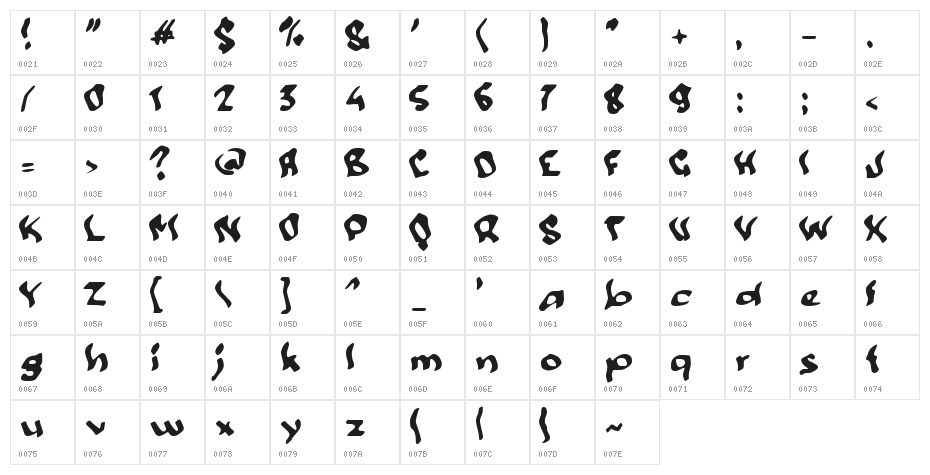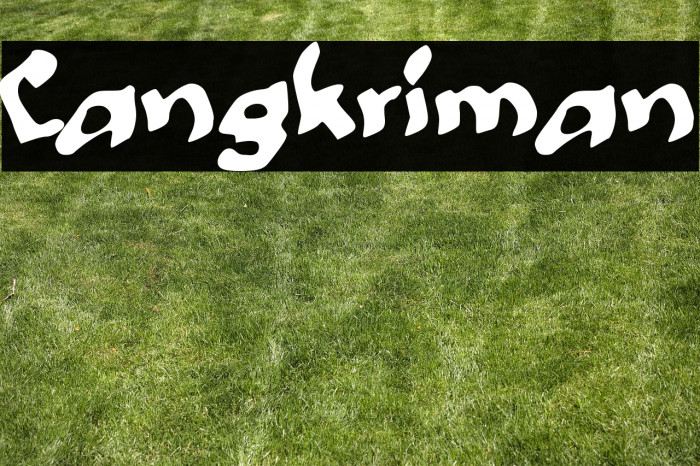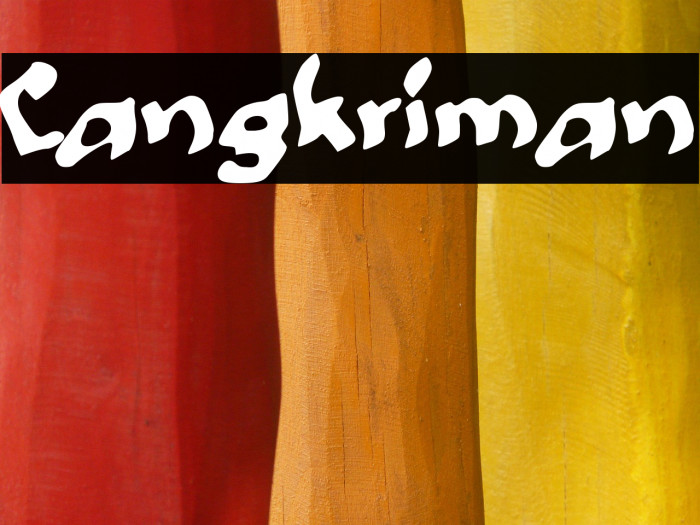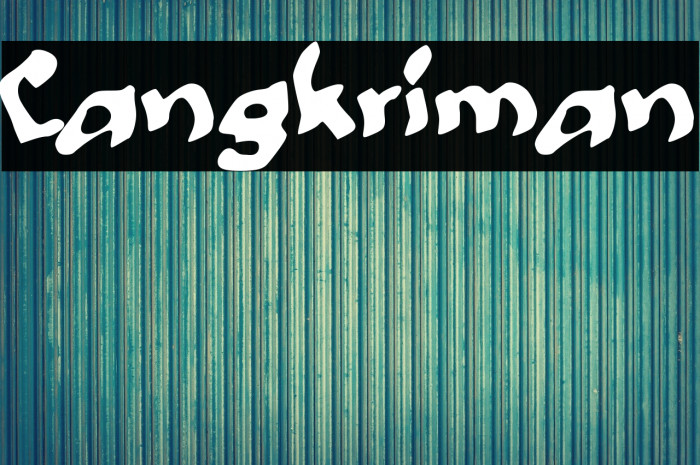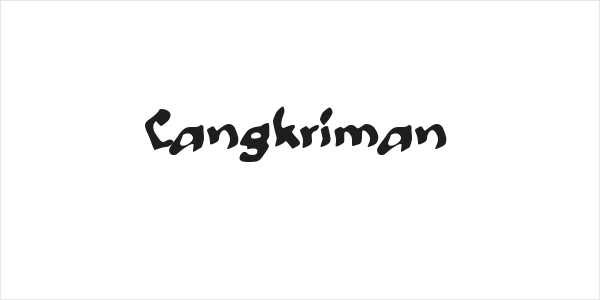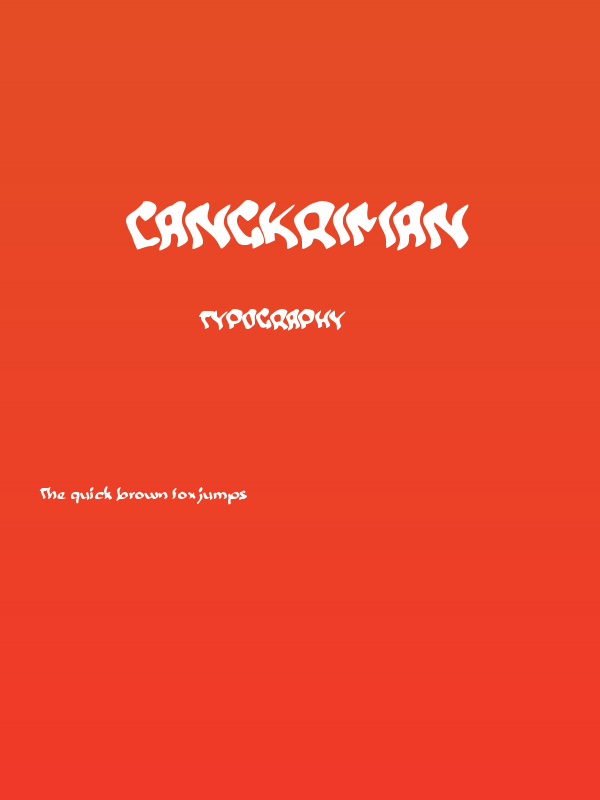
Cangkriman Font
Cangkriman Description
This font features a bold and dynamic style with a distinctly hand-drawn appearance. The characters are irregular and organic, giving them a lively and energetic feel. The strokes are thick and uneven, contributing to a playful and informal aesthetic. The uppercase and lowercase letters maintain a consistent style, with exaggerated curves and angles that create a sense of movement. The numbers and special characters follow the same design principles, ensuring a cohesive look across all glyphs. This font's unique character makes it ideal for projects that require a touch of creativity and individuality.
| Proposed Projects | Ideal for creative projects such as posters, album covers, branding, and children's books. |